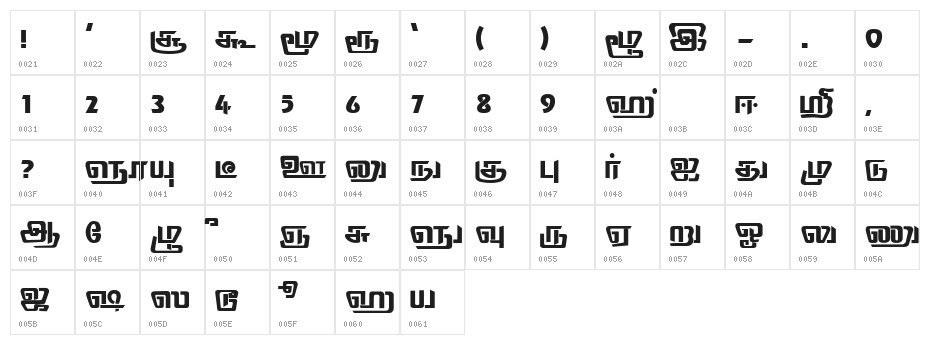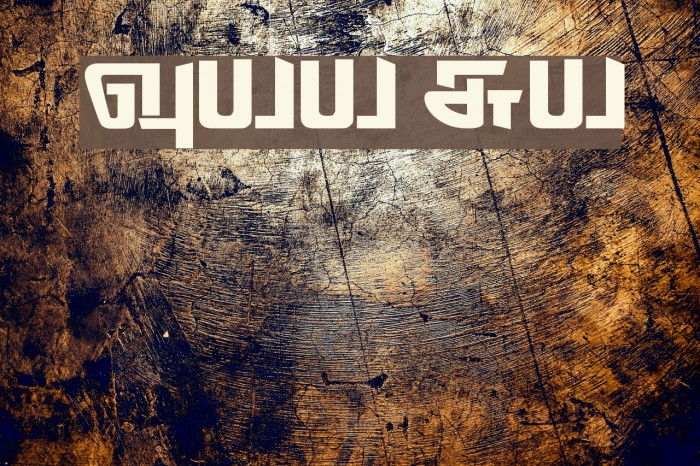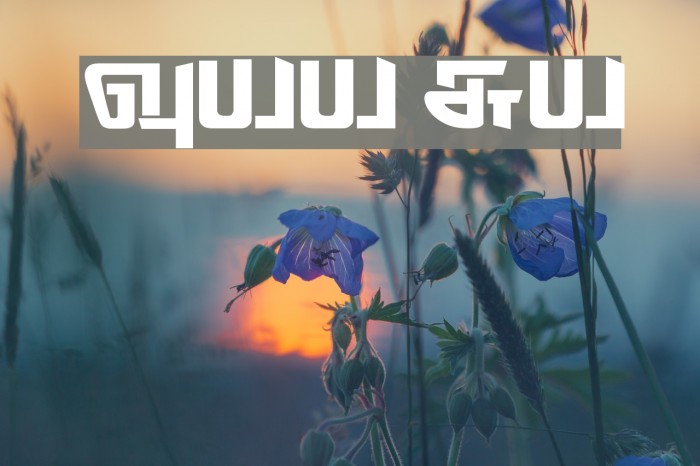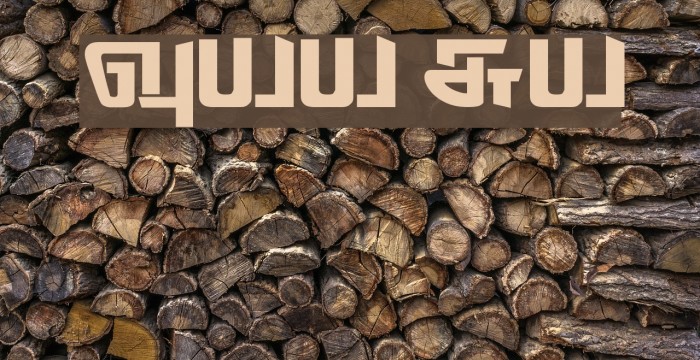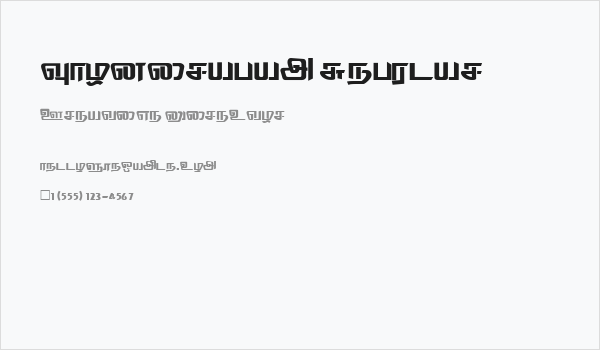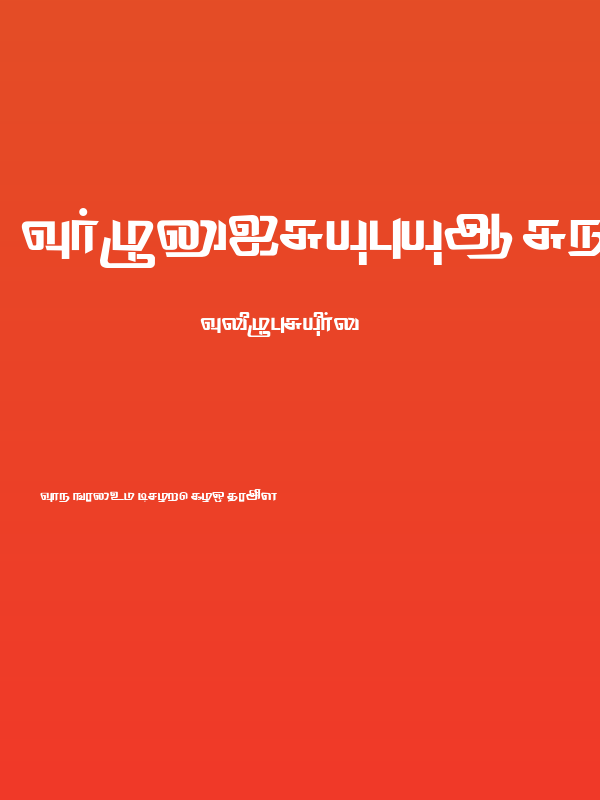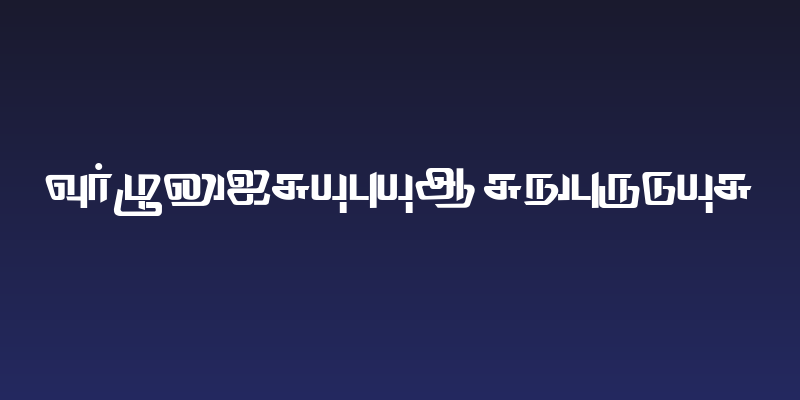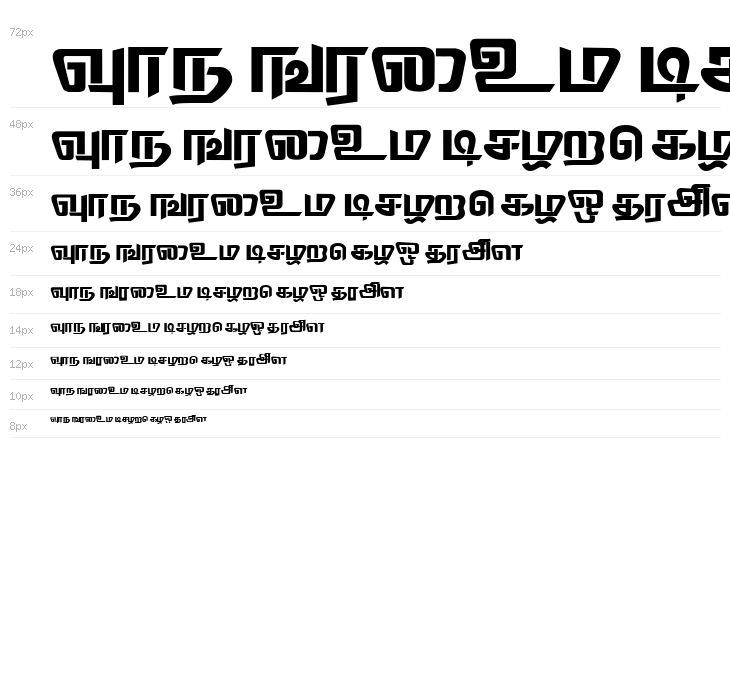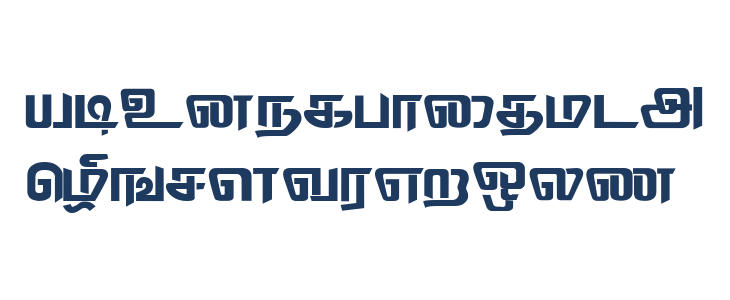
Thodiragam Regular Font
Thodiragam Regular Description
This font features a bold and structured design, characterized by its strong geometric shapes and clean lines. The characters are well-defined with a consistent stroke width, giving it a modern and assertive appearance. The font maintains a uniform height across all characters, ensuring readability and balance. Its distinct style is suitable for creating impactful headlines and titles. The numerals are clear and bold, matching the overall aesthetic of the font. Special characters are included, maintaining the same boldness and clarity as the letters and numbers.